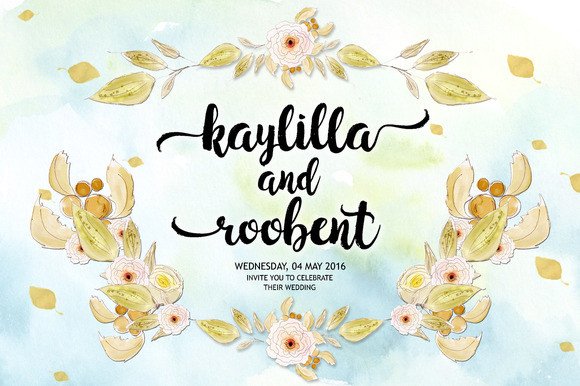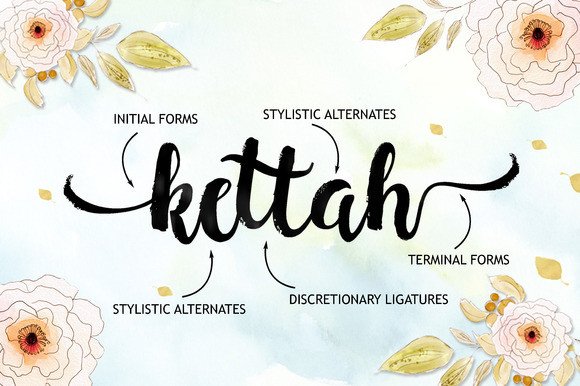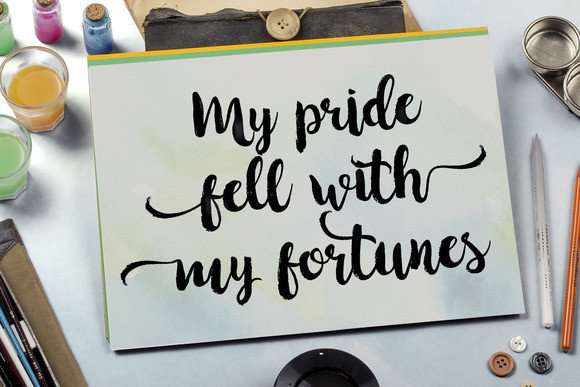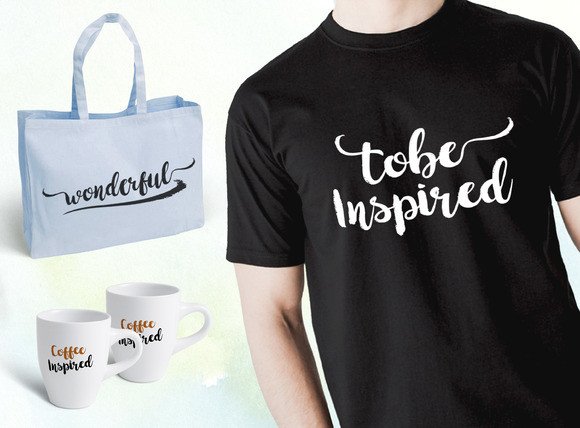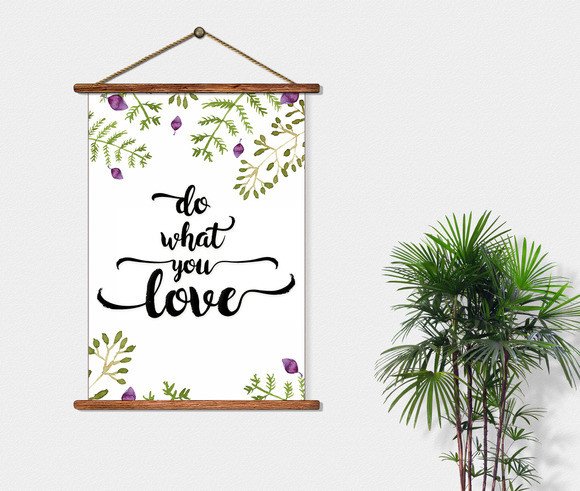
Hollic Font
About Hollic Font
Hollic Brush is a elegant and classy brush font. This script type font looks great on all your designs, signs, cards, invites and more.